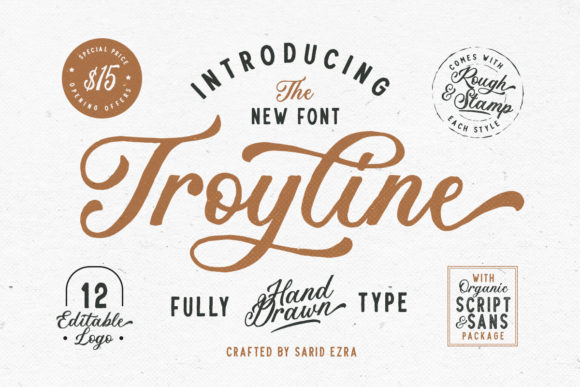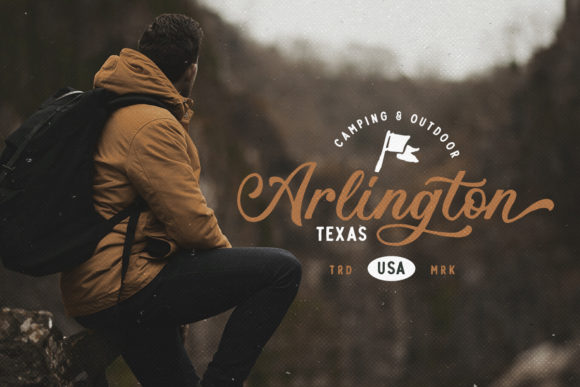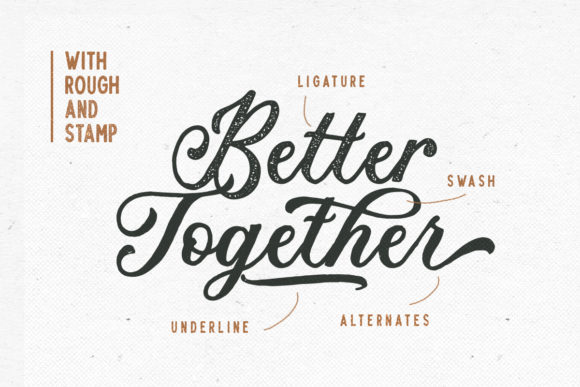
Troyline Font
db-ku.com - Script & Handwritten -- Troyline is a beautiful and retro styled duo font (sans serif and script). Masterfully designed to become a true favorite, this font has the potential to bring each of your creative ideas to the highest level!